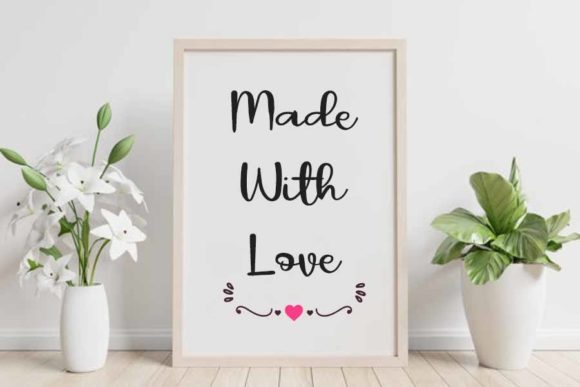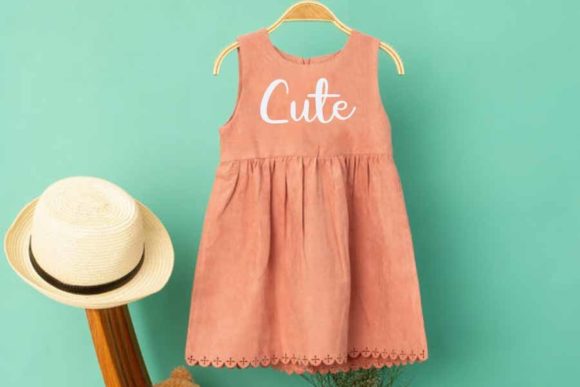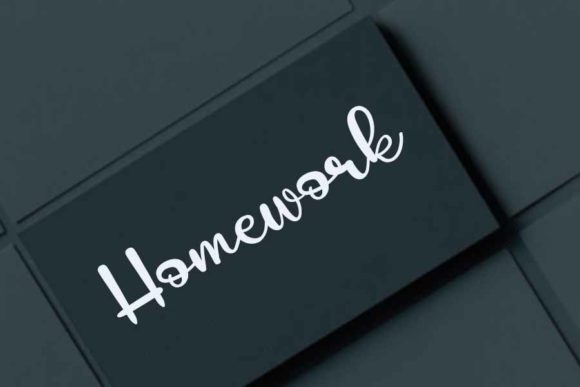
About Alligator Font
Introducing “Alligator,” a beautiful typeface known for its feminine and elegant appearance. This versatile font is well-suited for a variety of design applications, including logos, invitations, blogs, and captivating headlines. The graceful and refined characteristics of “Alligator” make it an excellent choice when you want to convey sophistication and style in your projects.
Whether you’re working on branding materials, event invitations, or creating eye-catching headlines, “Alligator” adds a touch of elegance to your design. The typeface’s balanced and harmonious features make it a standout choice for projects where a feminine and sophisticated look is desired.
Consider “Alligator” as more than just a font—it’s a design tool that enhances the visual appeal of your creations. Its versatility allows it to adapt to different design needs, ensuring a seamless integration into your projects.
In summary, “Alligator” is a beautiful typeface that combines femininity and elegance, making it an ideal choice for logos, invitations, blogs, and attention-grabbing headlines. Embrace its graceful charm and let it be the font that elevates the sophistication of your designs.